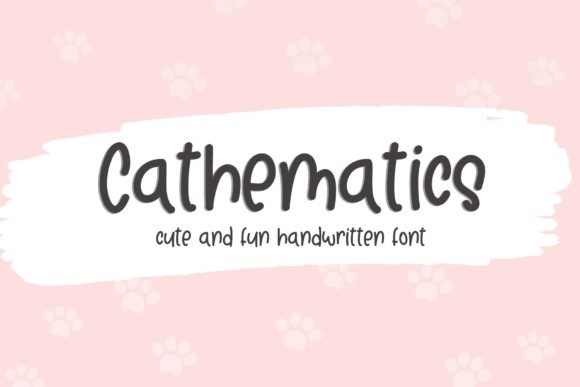
Discover the Magic of Cathematics Font
Have you ever found yourself scribbling down ideas in a notebook, only to realize that your handwritten notes have become a work of art? It’s that moment of creative spark when you know you’re onto something special. For designers, those moments are what drive us to push the boundaries of our craft.
Enter Cathematics Font, a charming handwritten font that captures the essence of those spontaneous moments. This versatile font is designed to bring your creative ideas to life, turning even the most mundane concepts into stunning visual representations. With its unique blend of quirkiness and elegance, Cathematics Font is the perfect tool for designers looking to add a personal touch to their work.
Cathematics Font Key Features
- Unique Characteristics: Cathematics Font features a unique blend of mathematical and artistic elements, with intricate designs and symbols that add a touch of elegance to any text.
- Mathematical Symbols: The font includes a comprehensive set of mathematical symbols, including Greek letters, algebraic operators, and geometric shapes, making it an ideal choice for mathematical and scientific publications.
Cathematics Font Review
As a designer, I’ve had the chance to work with the Cathematics font, and I must say it’s a unique addition to any project. Here’s my honest review.
- The Cathematics font has a beautiful, elegant feel to it, making it perfect for high-end branding and packaging design.
- The font’s irregularities and asymmetries add a touch of sophistication and character, setting it apart from more traditional fonts.
- The font’s bold and regular weights work well together, offering a range of styling options for designers.
- The Cathematics font may not be suitable for body text or long blocks of text due to its irregularities, which can make reading difficult.
Overall, the Cathematics font is a great choice for designers looking to add a touch of elegance and sophistication to their projects. While it may have some limitations, its unique character and beautiful design make it a valuable addition to any designer’s toolkit.
Cathematics Font is ideal for use in creative projects, such as:
– Infographics
– Posters
– Brochures
– Branding materials
– Educational materials